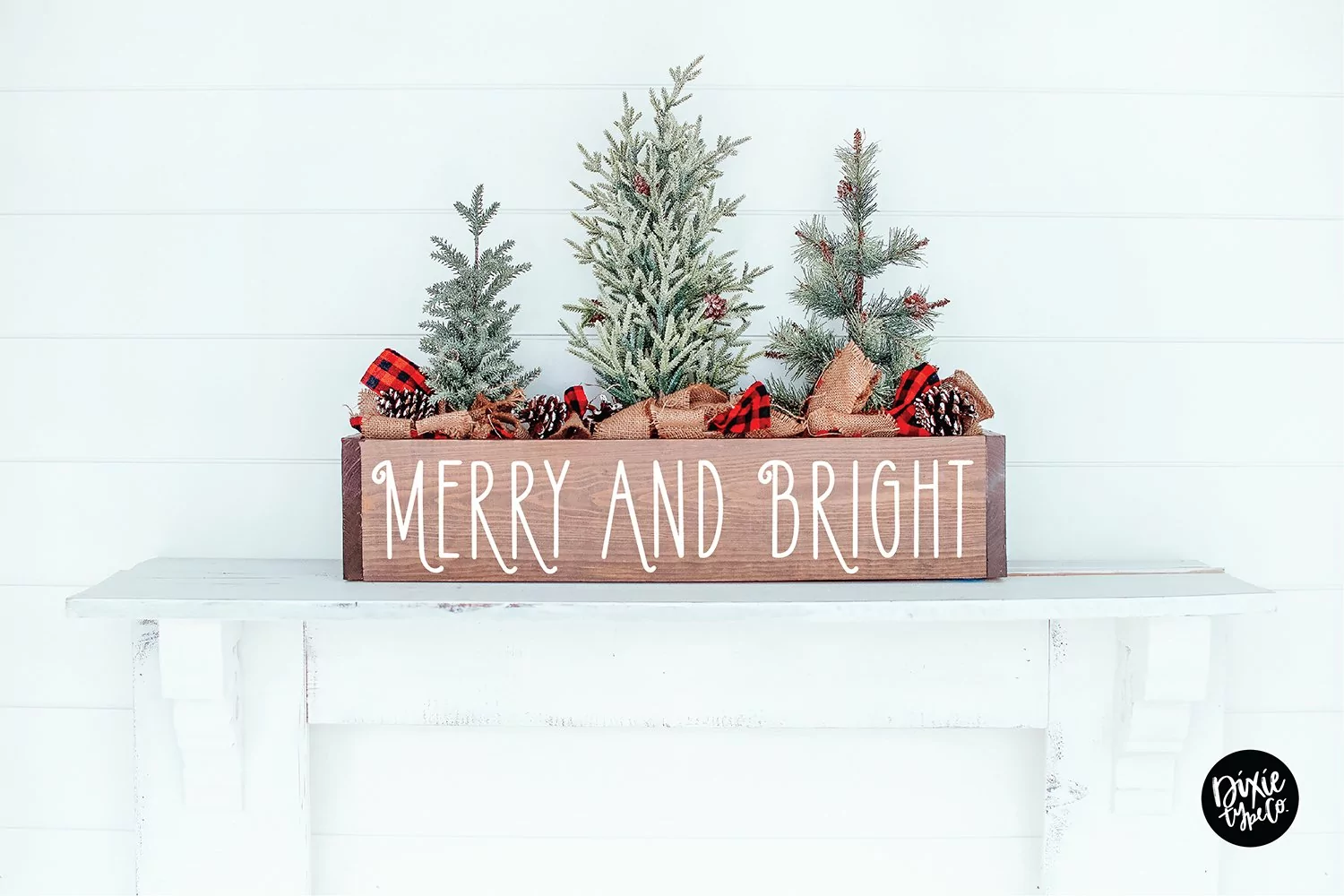
"Pinewood" a Farmhouse Christmas/Winter font
{ A typographic font hand lettered with love by Dixie Type Co. }
Pinewood is great for your holiday projects. Use it for christmas cards, winter crafts for decor and more! This font includes numbers and basic punctuation.